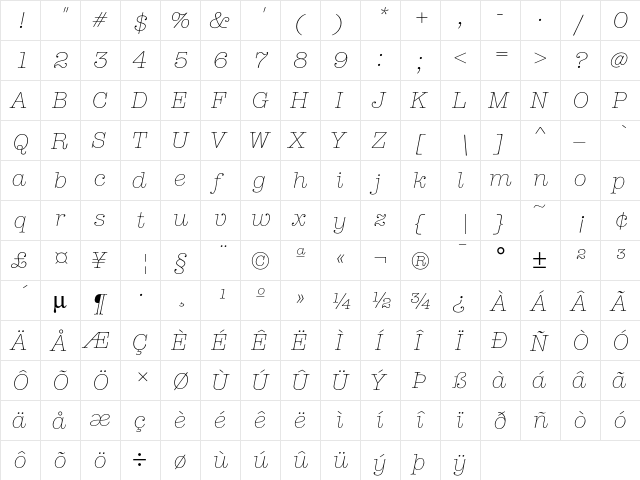
AmTypEFLigIta Regular
AmTypEFLigIta takes a measured approach to typography — its balanced proportions and neutral character make it a reliable workhorse for both digital and print work.